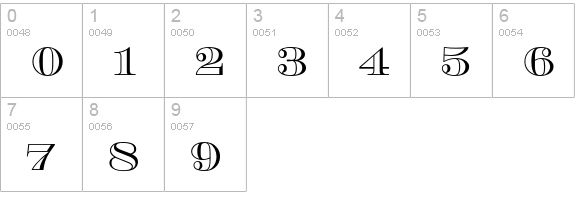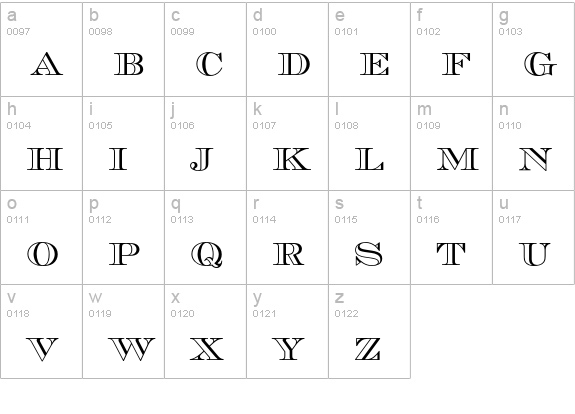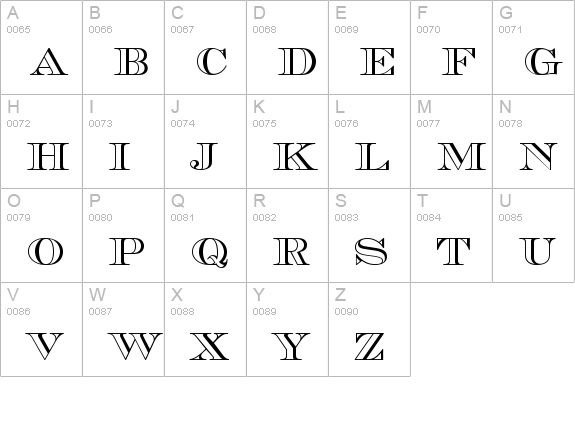
EscorialEF-Outline Font Details
EscorialEF-Outline font is a sleek and modern typeface that exudes elegance and sophistication. With its clean lines and sharp edges, this font is perfect for adding a touch of refinement to any project. The outline style gives it a unique and contemporary look that is sure to make your designs stand out. Best of all, EscorialEF-Outline font is completely free to download at FontsMarket.com. Whether you're creating a logo, signage, or any other design project, this versatile font is a great choice. Its timeless appeal and versatility make it a must-have in any designer's toolkit. Download EscorialEF-Outline font today and elevate your designs to the next level.